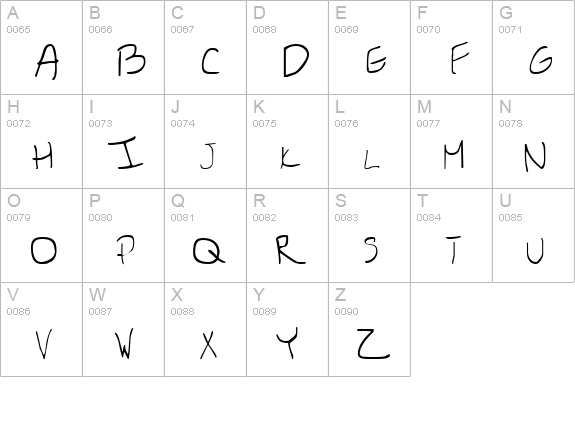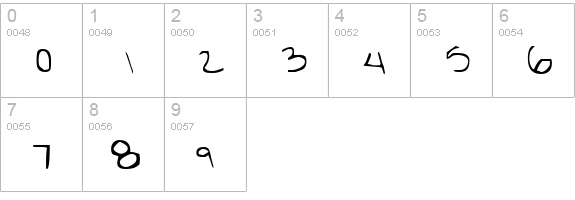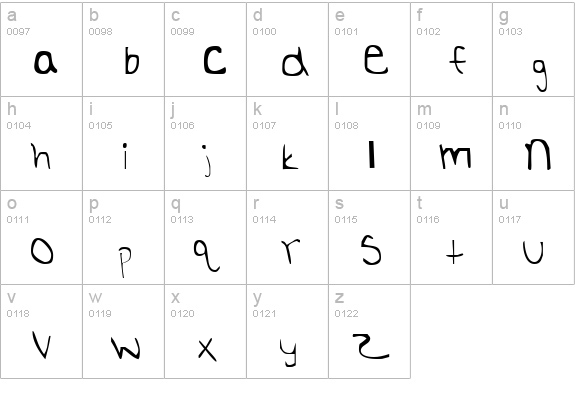
Britts Hand Font Details
Britts Hand font is a charming and versatile handwritten typeface that exudes warmth and personality. With its elegant curves and natural flow, this font is perfect for adding a touch of creativity and friendliness to your projects. Whether you are creating invitations, greeting cards, posters, or branding materials, Britts Hand font is sure to make a lasting impression. The best part? Britts Hand font is completely free to download at FontsMarket.com, making it accessible to designers, creatives, and enthusiasts alike. Embrace the beauty of hand-drawn lettering with Britts Hand font and elevate your designs with its unique and artistic flair. Add a personal touch to your creations and let Britts Hand font bring your ideas to life with its free-spirited charm.